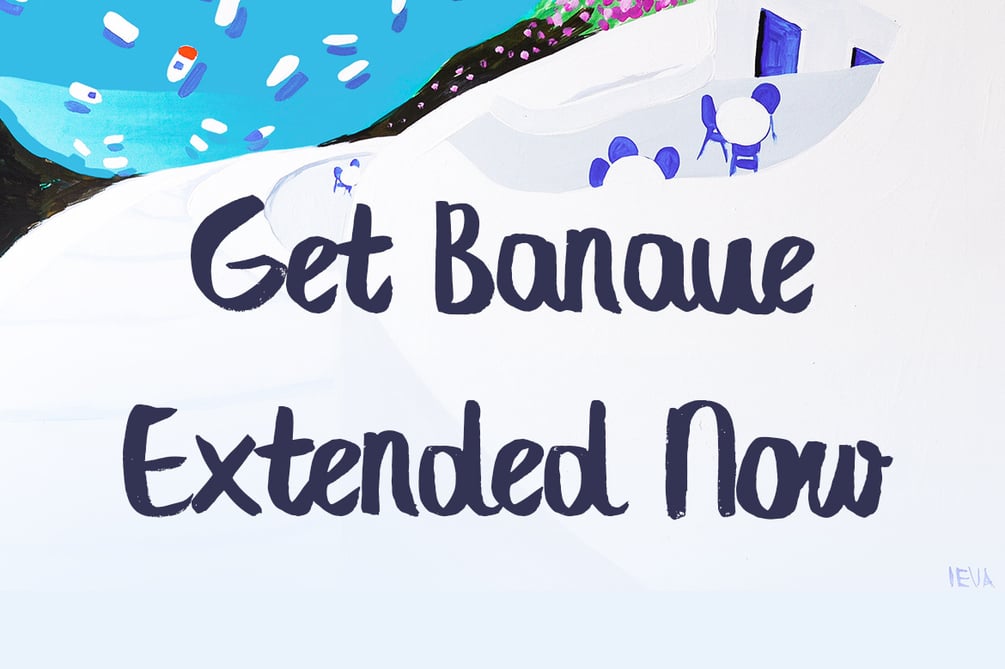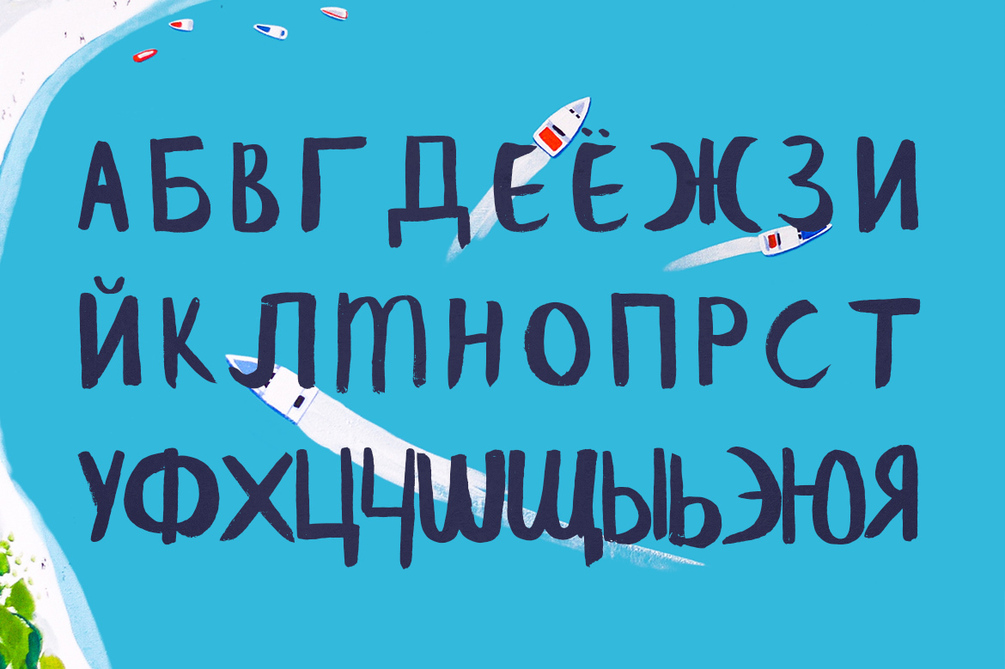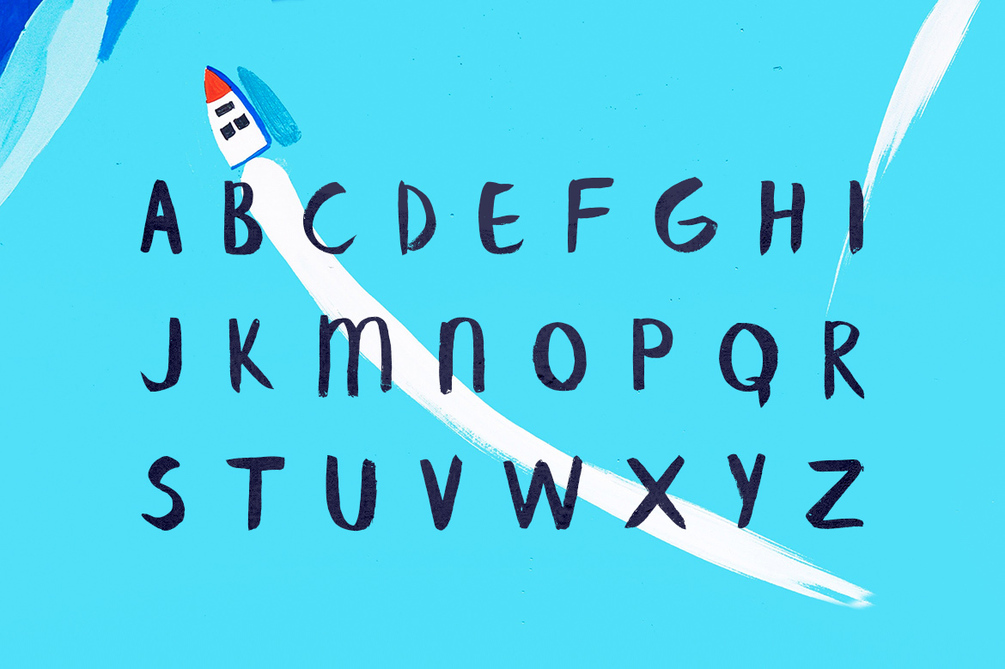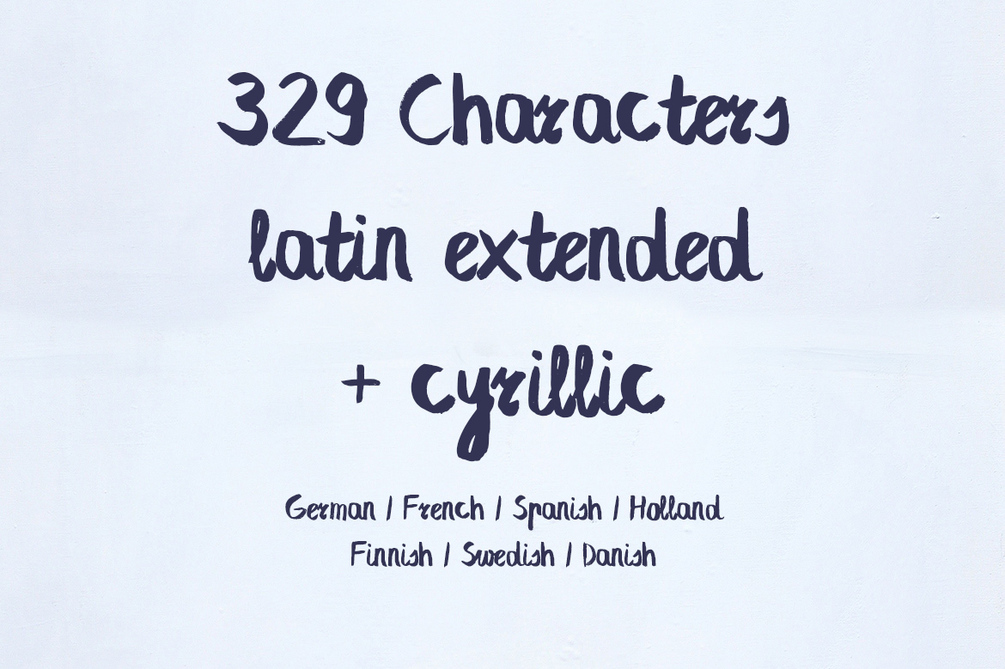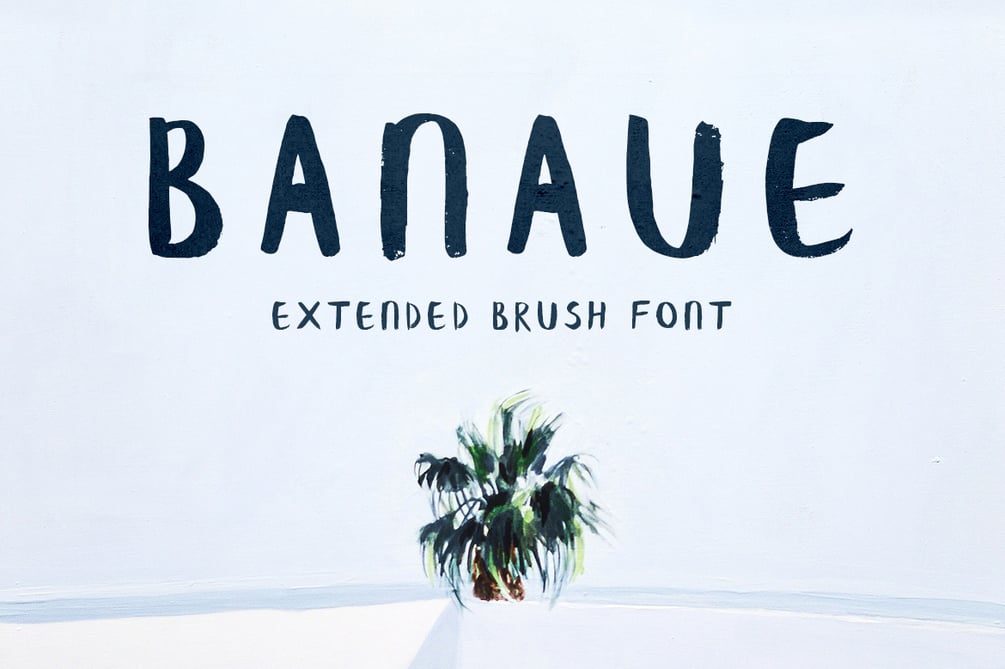
Banaue Extended
Banaue extended is the pro version of the previous font - Banaue. It has been updated and now contains small letters , cyrillic letters and EU country based glyphs. About 330 glyphs make the new and more fresh handmade typeface.